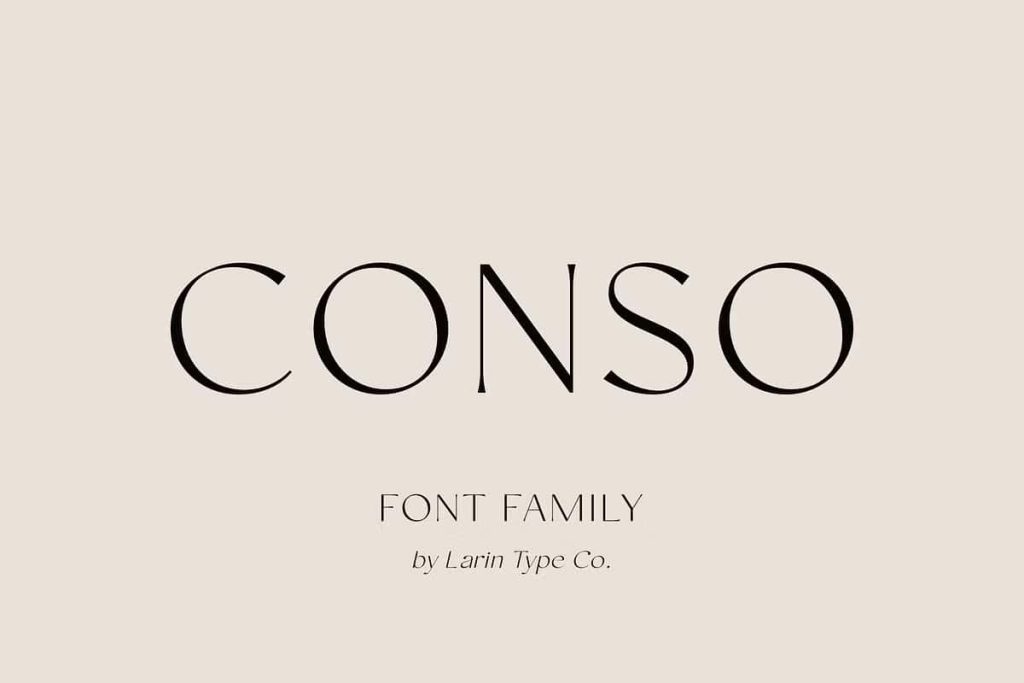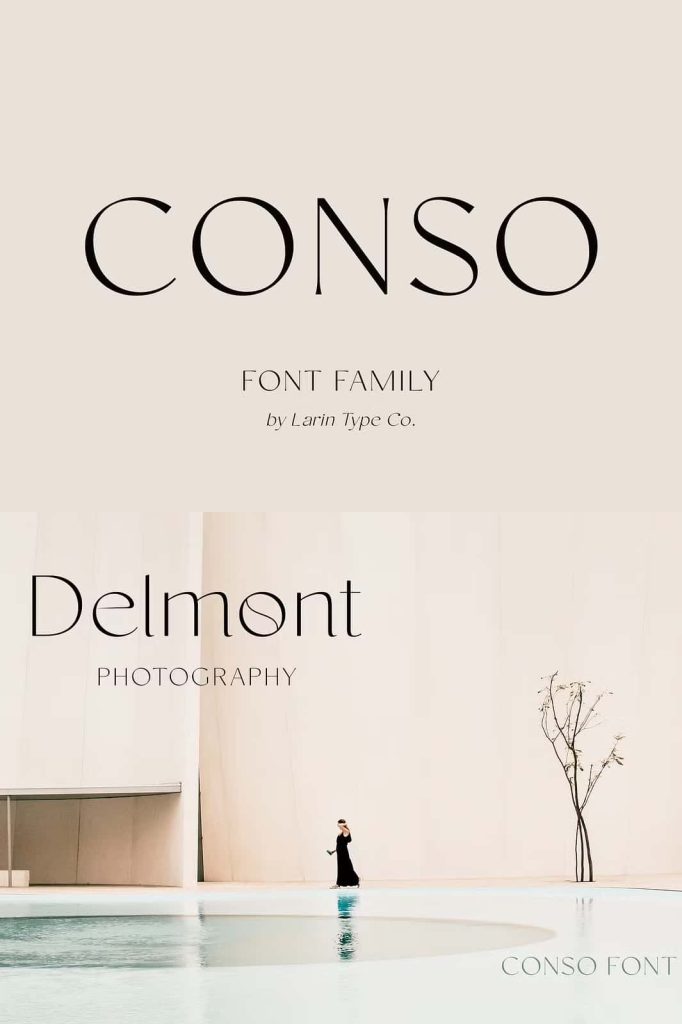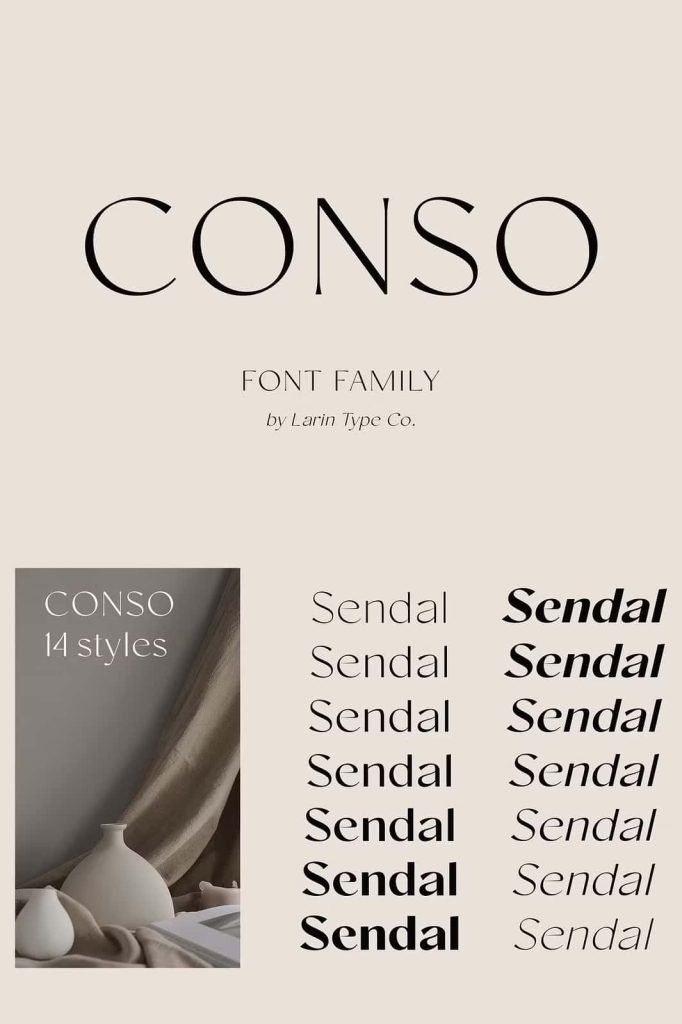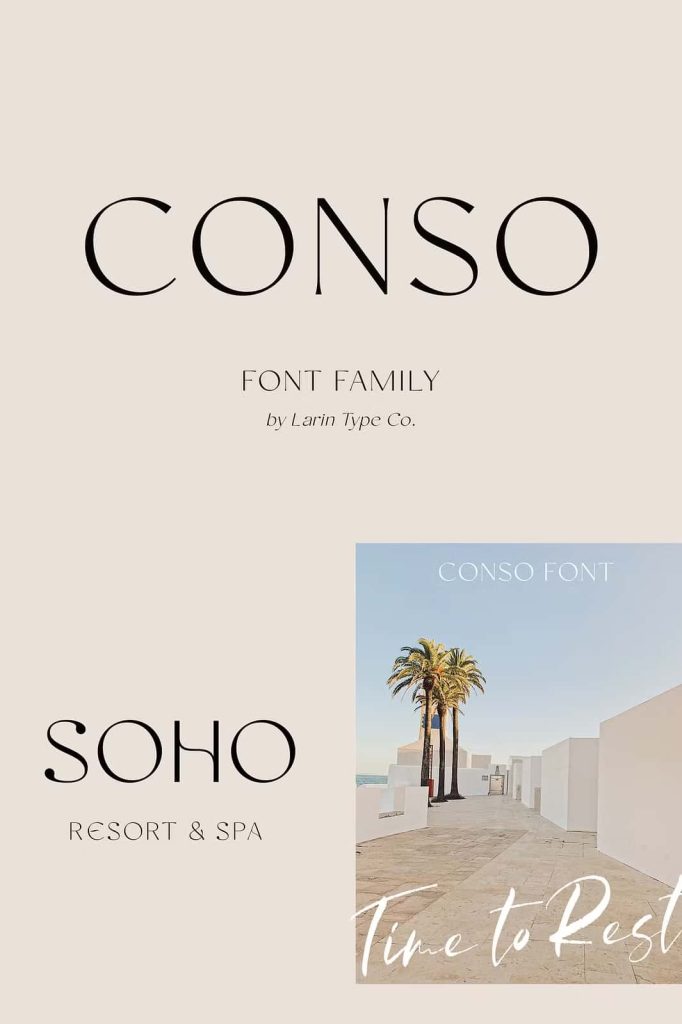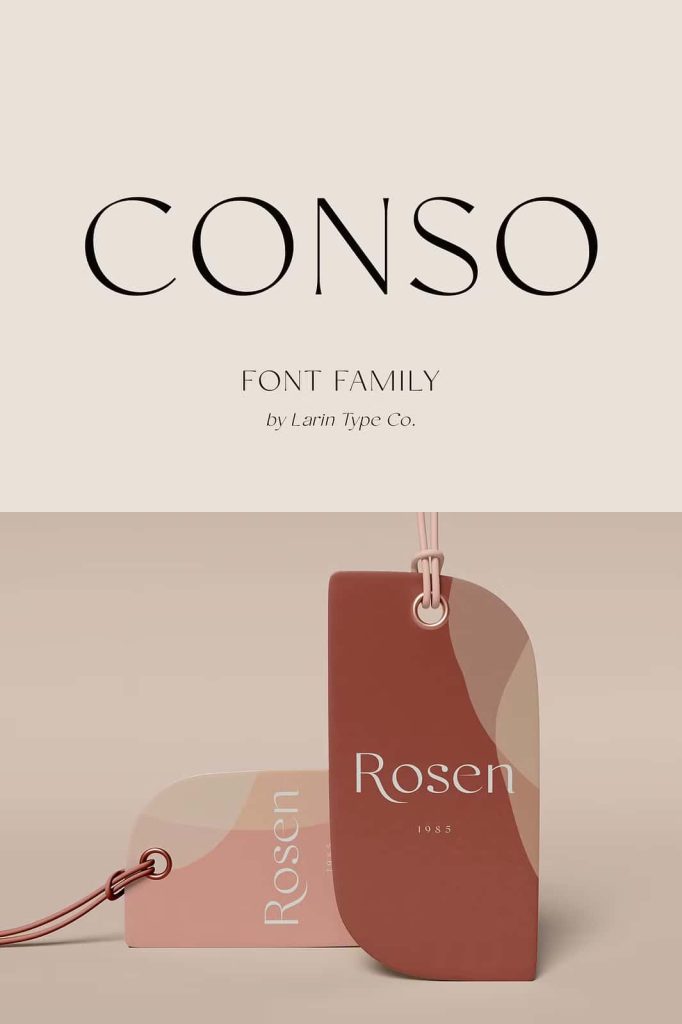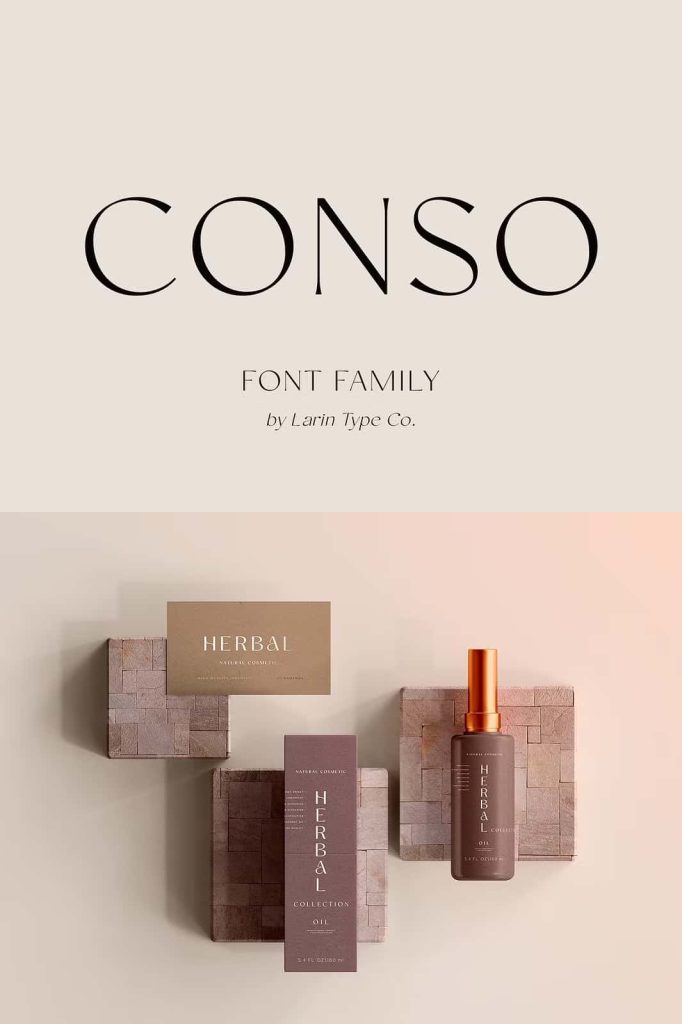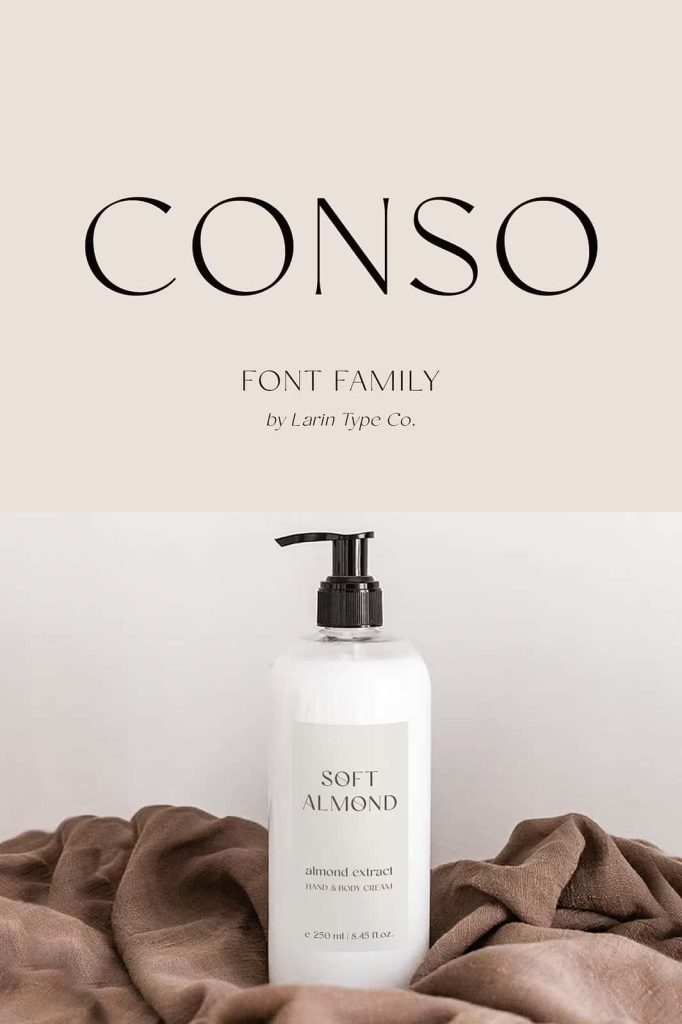
CONSO is an elegant, modern and contrast sans-serif font family. It includes upright and Italic style, each of them has seven weights from thin to bold. This is a multi-purpose font that is perfect for any project, it is contrasted, modern and easy to read. With it, you can create logos, use in advertising, packaging, book covers and magazines, headings, descriptions and much more.